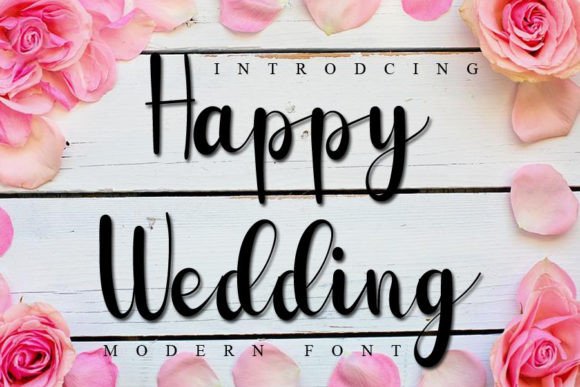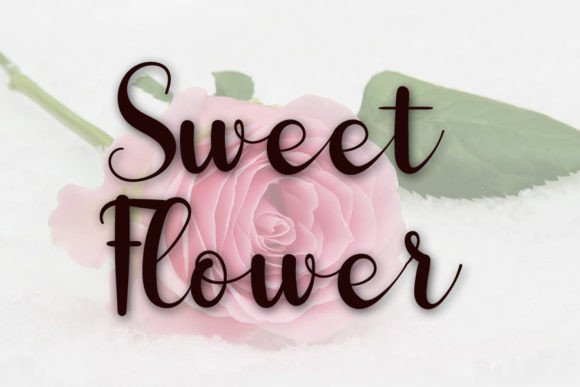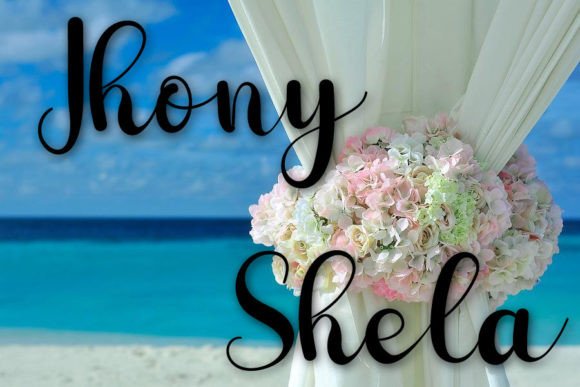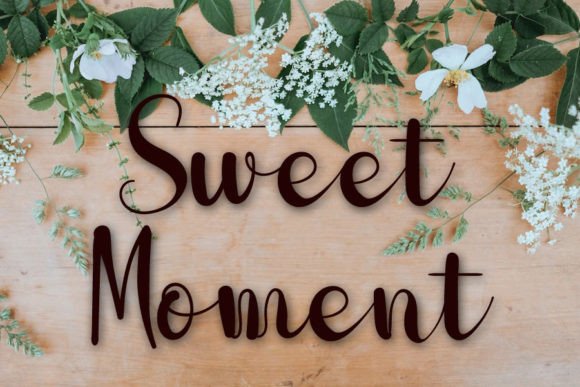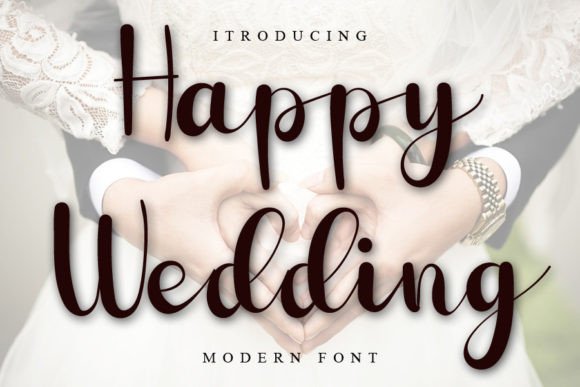
Introducing Happy Wedding: The Perfect Font for Your Special Day
Are you searching for a beautiful and fresh handwritten script font to make your wedding projects truly special? Look no further than Happy Wedding! This stunning font is designed to add a touch of elegance and romance to your designs, making it perfect for wedding invitations, decorations, and more.
What Makes Happy Wedding So Special?
Happy Wedding is a unique and beautiful handwritten script font that is sure to capture the essence of your special day. With its flowing lines and delicate curves, this font exudes a sense of love, joy, and celebration. Whether you’re a designer, crafter, or simply someone who loves to create, Happy Wedding is the perfect addition to your font collection.
Key Features of Happy Wedding Font
• Fresh and Beautiful Design: Happy Wedding boasts a modern and elegant design that is sure to impress. Its unique lettering style and beautiful curves make it perfect for creating stunning wedding projects.
• Handwritten Script Font: This font features a handwritten script style that adds a personal touch to your designs. Its flowing lines and delicate curves give it a romantic and whimsical feel.
• Easily Readable: Despite its elegant design, Happy Wedding is easily readable, making it perfect for use in wedding invitations, programs, and other materials.
• Versatile: Happy Wedding is a versatile font that can be used in a variety of projects, from wedding invitations and decorations to social media graphics and more.
How to Use Happy Wedding in Your Projects
Adding Happy Wedding to your projects is easy! Here are a few ways you can use this beautiful font:
• Wedding Invitations: Create stunning wedding invitations that set the tone for your special day. Use Happy Wedding to add a touch of elegance and romance to your designs.
• Wedding Decorations: Use Happy Wedding to create beautiful wedding decorations, such as banners, signs, and centerpieces.
• Social Media Graphics: Add a touch of wedding magic to your social media graphics, such as Facebook and Instagram posts, using Happy Wedding.
• Crafting Projects: Happy Wedding is perfect for crafters who love to create handmade wedding gifts, such as wedding cards, gift tags, and more.
Why Designers and Crafters Love Happy Wedding
Designers and crafters alike love Happy Wedding for its unique and beautiful design. Here are a few reasons why:
• Unique Design: Happy Wedding boasts a unique design that sets it apart from other fonts. Its beautiful curves and flowing lines make it perfect for creating stunning wedding projects.
• Easy to Use: Happy Wedding is easy to use, even for those who are new to designing or crafting. Its simple and intuitive design makes it easy to add to your projects.
• Customizable: Happy Wedding is customizable, allowing you to adjust the font to fit your project’s needs.
In conclusion, Happy Wedding is a beautiful and fresh handwritten script font that is perfect for wedding projects. Its unique design, elegant curves, and flowing lines make it a must-have for designers and crafters alike. Whether you’re creating wedding invitations, decorations, or social media graphics, Happy Wedding is sure to add a touch of love, joy, and celebration to your designs.